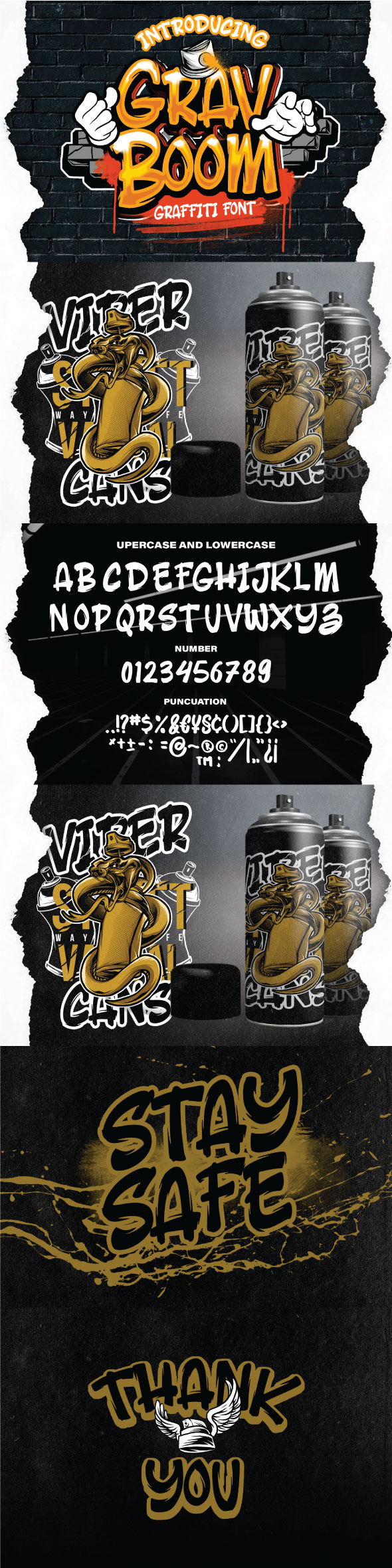
Top 10 Graffiti Fonts to Electrify Your 2025 Designs
Crazy Marker Graffiti Font
This best-selling, handmade font perfectly captures the look of a fresh marker tag. Its clean lines and trendy style make it incredibly versatile for a wide range of projects. The font comes in both OTF and TTF formats, including a full set of characters, numbers, and punctuation. It's an ideal choice for creating eye-catching branding, apparel designs, advertisements, and social media posts.
Who it's suitable forSocial media managers, apparel designers, branding specialists
Skylight delivers a bold, all-caps graffiti style that demands attention. This handmade font is perfect for making a strong statement on logos, posters, and headlines. It includes numbers and punctuation, ensuring you have everything needed for a complete design. Provided in both OTF and TTF formats, Skylight is easy to install and use across various design platforms for that authentic street art feel.
Who it's suitable forEvent promoters, logo designers, poster artists
For a raw, authentic hand-tagged look, Street Tag Vol 1 is a top contender. This font mimics the quick, fluid motion of a real graffiti tag, making it perfect for projects that need a gritty, urban edge. It comes complete with swashes, numbers, and punctuation to add extra flair to your work. Use it for music cover art, streetwear branding, or video titles to capture a genuine street essence.
Who it's suitable forMusic artists, streetwear brands, video editors
While not a traditional graffiti font, Midway's bold, playful, and stylized look fits perfectly within modern urban and retro aesthetics. Inspired by vintage carnival signs, this font brings a unique character and energy to any design. It includes OTF, TTF, and WOFF file formats, making it versatile for both print and web. It's a fantastic choice for logos, posters, and display text that needs to pop.
Who it's suitable forBranding agencies, packaging designers, content creators
Building on the success of its predecessor, Street Tag Vol 2 offers another take on the authentic hand-style graffiti tag. This version features unique swashes and broad multilingual support, expanding its usability for a global audience. It’s perfect for adding a raw, personalized touch to album covers, social media stories, and apparel lines. If you loved Vol 1, this is a must-have addition to your font library.
Who it's suitable forAlbum art designers, social media managers, apparel designers
Take realism to the next level with this hyper-detailed SVG font. Rough Spray perfectly replicates the texture and transparency of actual spray paint, complete with overspray and splatters. Because it's an SVG font, it requires newer software like Photoshop CC 2017+ or Illustrator CC 2018+, but a standard OTF version is also included for wider compatibility. It's the ultimate choice for designs that need unparalleled authenticity.
Who it's suitable forDigital artists, advertisers, designers seeking hyper-realism
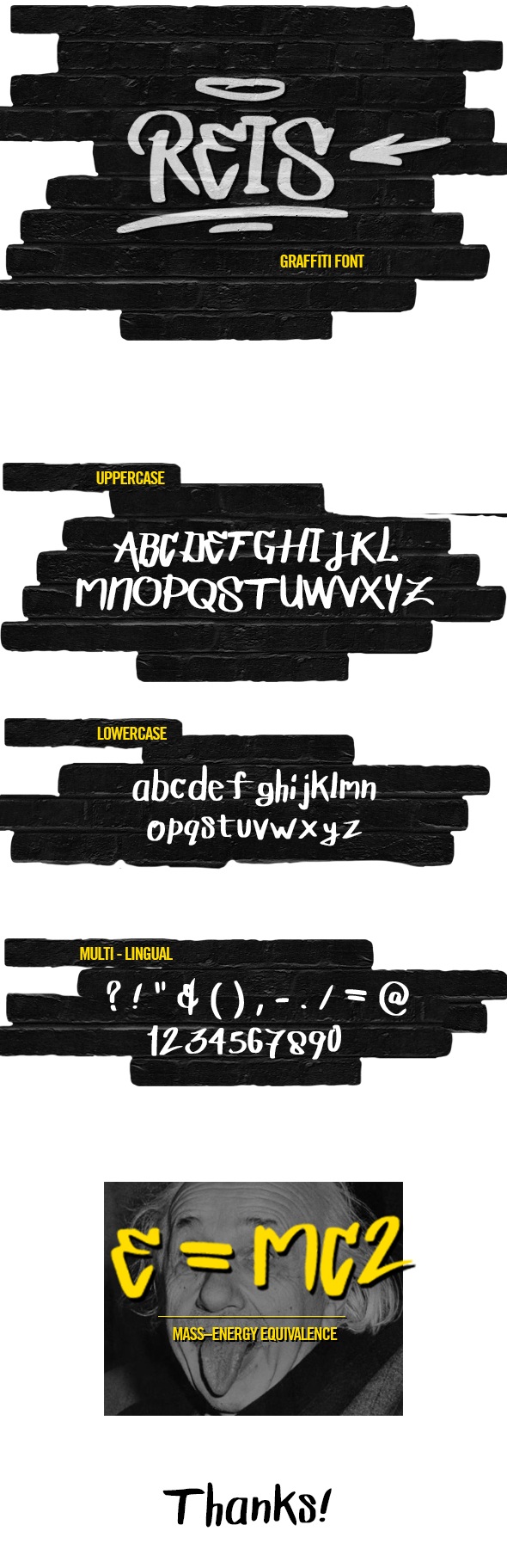
REIS is a modern, all-caps graffiti font that is incredibly versatile. Its clean yet edgy letterforms make it suitable for a vast array of multipurpose projects, from corporate branding that wants to be cool, to posters and clothing. Delivered in OTF and TTF formats, REIS is a reliable workhorse for any designer looking to add a touch of modern urban style to their creations.
Who it's suitable forMarketers, poster designers, YouTubers
Check the best price hereHandstyle Graffiti
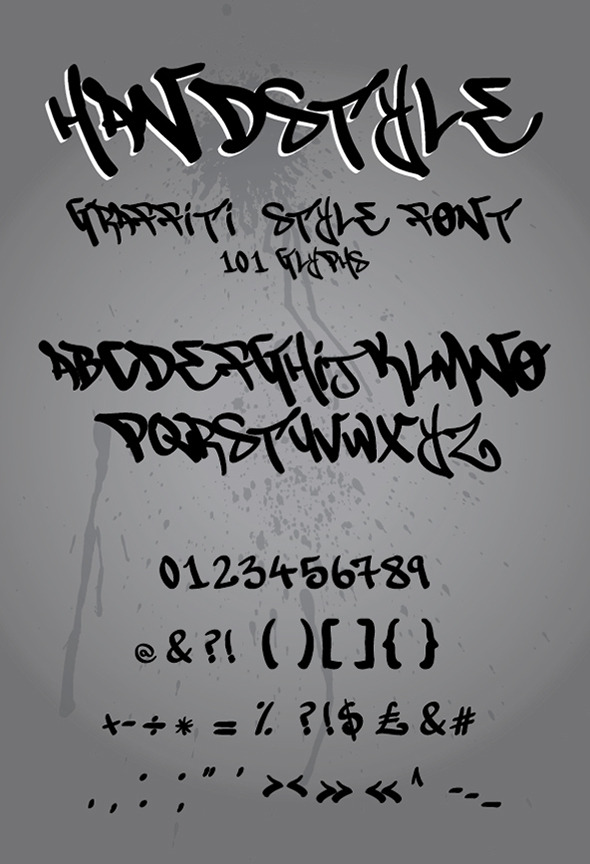
This font perfectly emulates the look of a quick tag from a marker pen. It's a classic handstyle font that has remained popular due to its legibility and authentic feel. The download includes the full alphabet, numbers, and symbols in a simple TTF format. It’s a go-to choice for logos, t-shirt mockups, and branding that requires a quick, stylish, and personal touch.
Who it's suitable forApparel designers, logo creators, branding specialists
Check the best price hereMaxtield - Graffiti Fonts
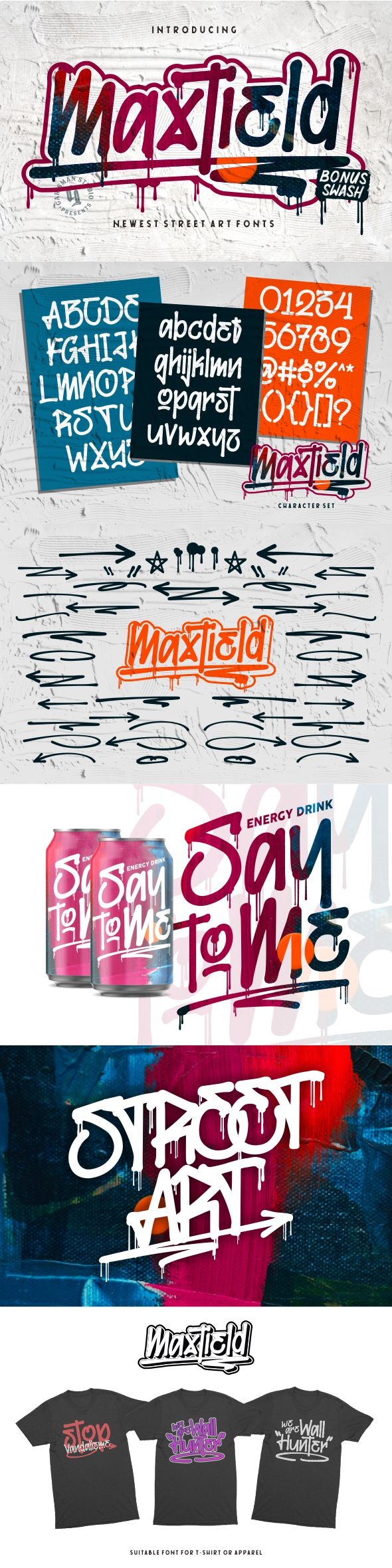
Maxtield is a modern graffiti font that comes packed with useful features like ligatures and alternate characters. These additions allow for greater customization, helping you create truly unique typographic compositions. Its clean and sharp style is great for product packaging, branding projects, and powerful quotes on social media graphics. Maxtield gives you the tools to create something truly dynamic.